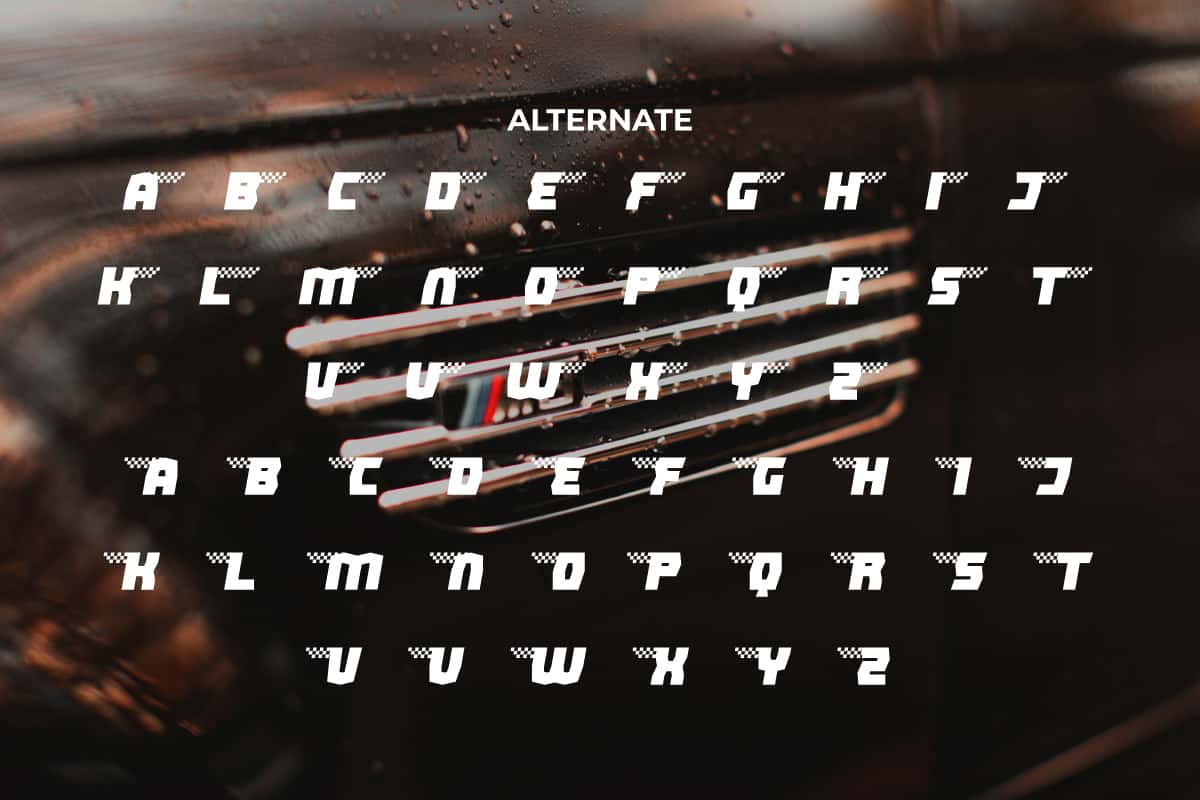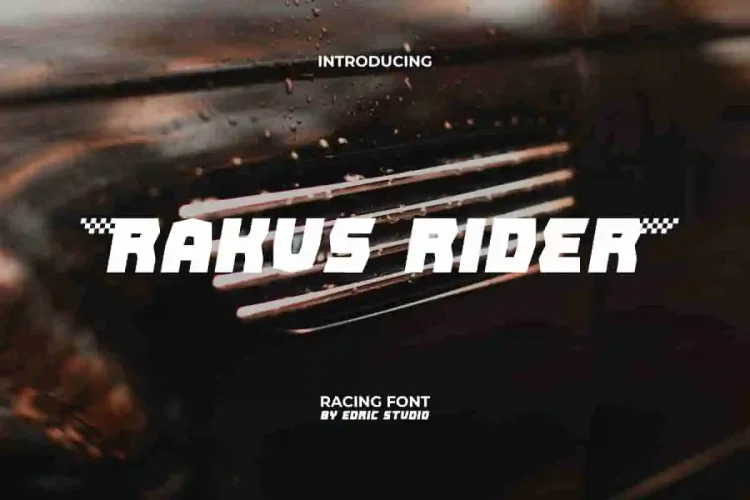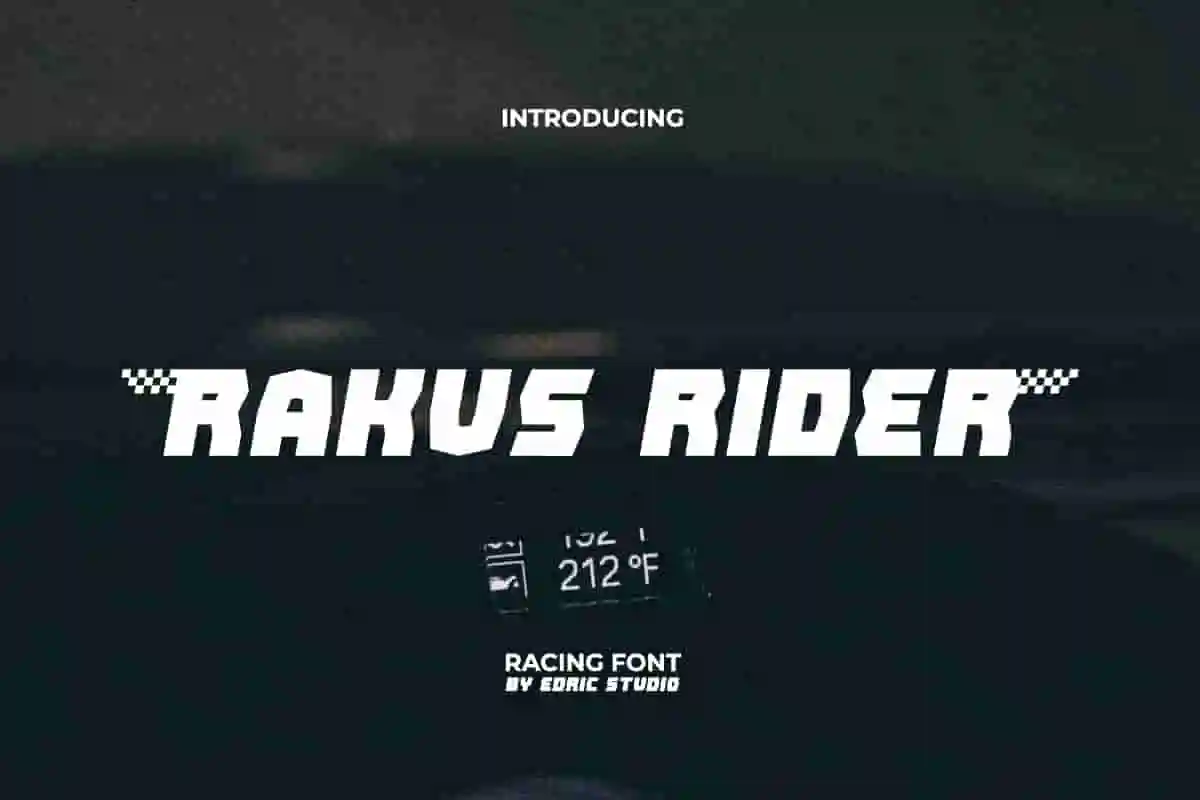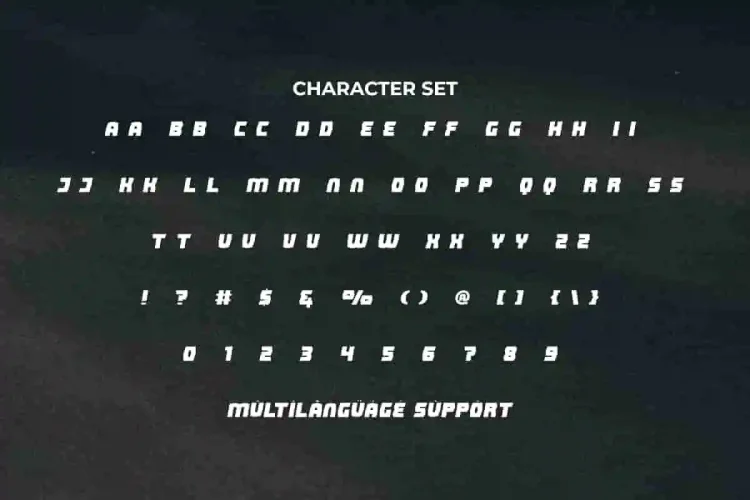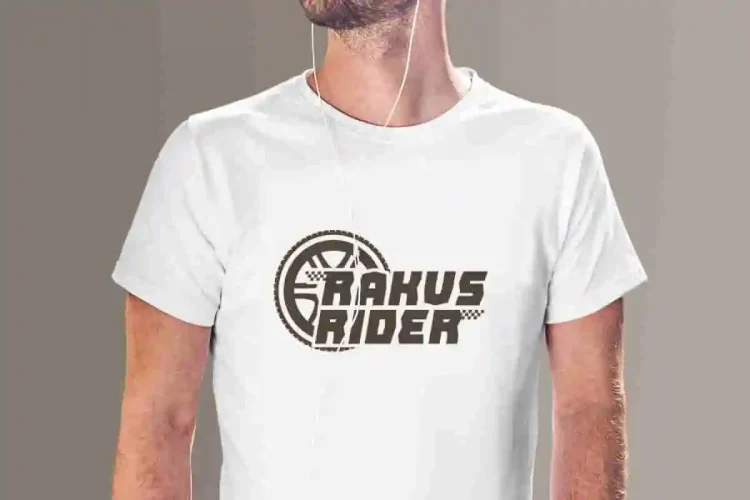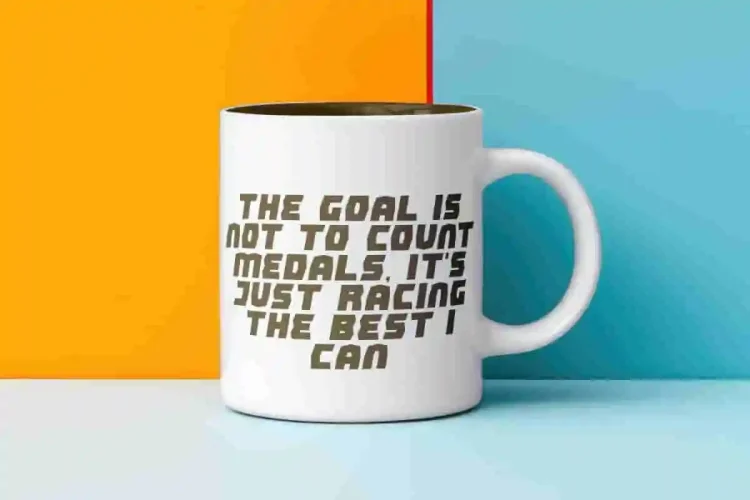
Rakus Rider Font is a speedy sporty bold racing display font with racing finish flag on its hat. It has a unique sharp edge with checkered flags on the left and right ends. This font is suitable for banners, billboard, blogs, brand logo, brochure, invitation, mockup, printed materials, poster, signage, sticker, template, title, website, and more.
Rakus Rider Font includes a complete set of ALL CAPS for both Uppercase and Lowercase letters, Numbers, Punctuation, Symbols and Alternate. This font dominates the impression of courage, sport, and the desire to dominate and defeat the opponent. You could use it for accessories and merchandise, fashion, graphic design, etc.